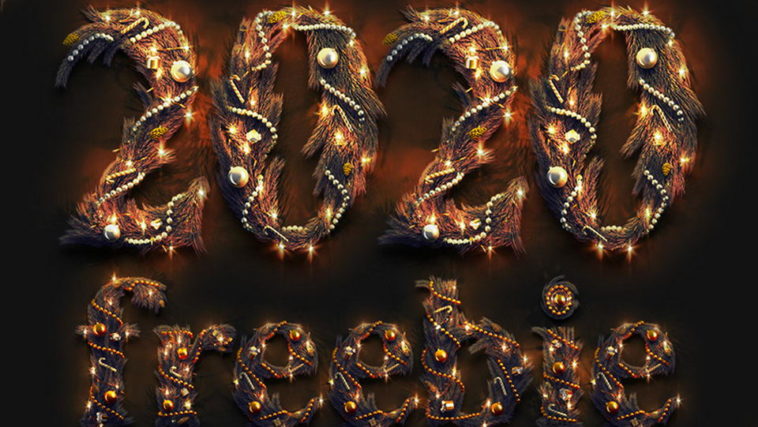
Download a Decorated Christams 2020 Animated font for New Yearβs card on the site, stories with graters, attractive e-mail newsletter. The free version contains 5 PSD with lower case